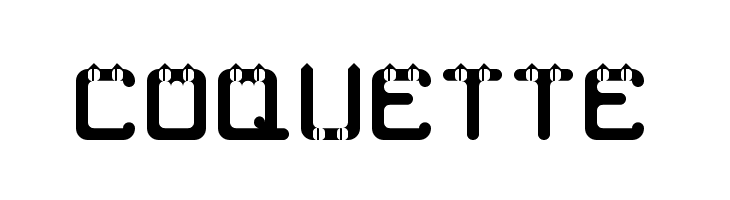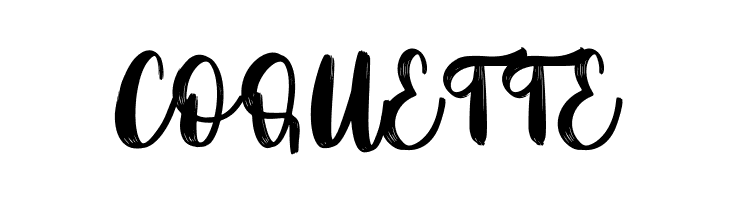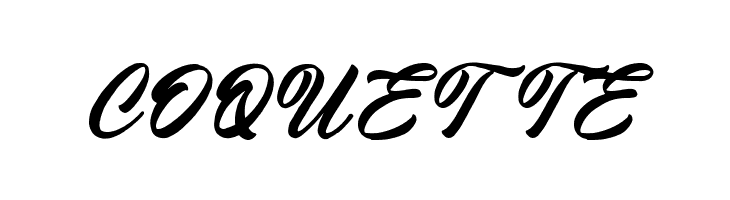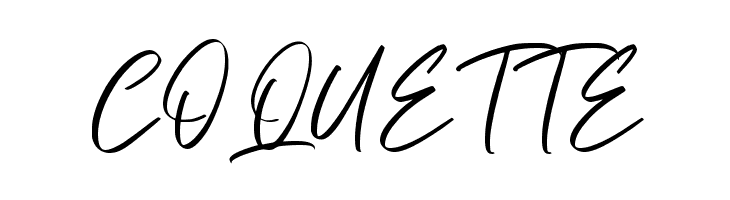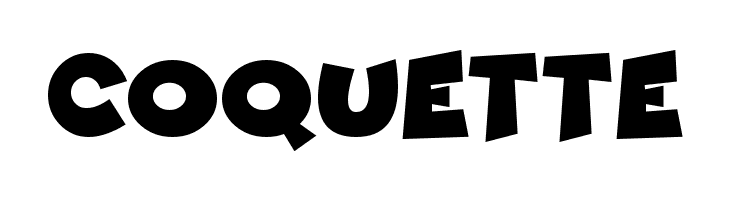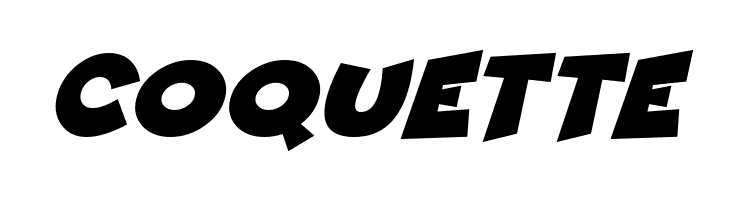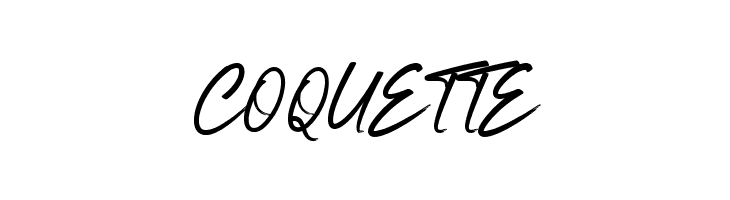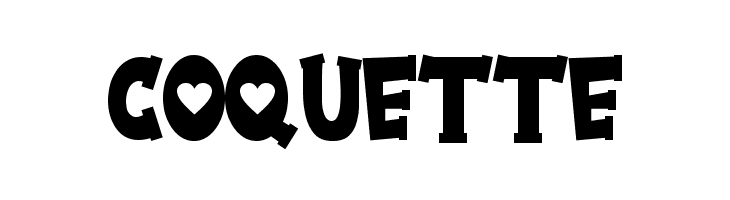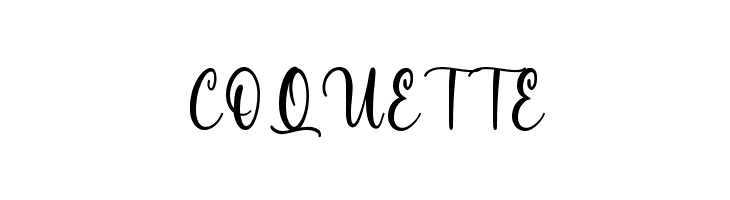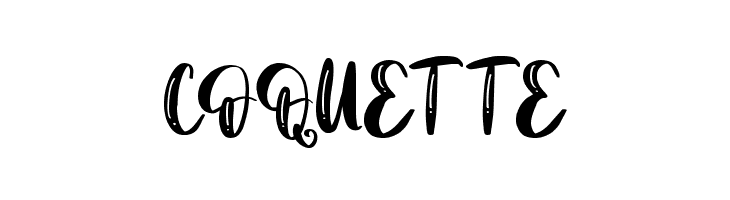
A playful and casual handwritten font with fluid, connected letterforms.
A fluid, elegant script font with a natural handwriting style.
A playful and elegant script font with flowing, cursive letterforms.
A flowing, cursive font with elegant curves and a sophisticated style.
A playful and elegant script font with flowing, connected letters.
A cursive, handwritten-style font with elegant, flowing characters.
A playful, handwritten font with bold, rounded characters.
A flowing, cursive font with elegant, interconnected strokes.
A flowing, cursive font with elegant, interconnected letters and a graceful aesthetic.
A flowing, cursive script font with elegant, interconnected characters.
A dynamic and flowing script font with elegant, connected letterforms.
A stylish and elegant script typeface with a modern calligraphic flair.
A bold, angular font with sharp edges and a dynamic geometric style.
A bold, geometric font with a 3D effect and modern style.
A bold, energetic script font with fluid, lively strokes.
A playful font with cat ear designs on each character, offering a whimsical and modern aesthetic.
A playful, heart-embellished font with bold, chunky letters and whimsical charm.
A playful, hand-drawn font with tall, narrow letters and a whimsical style.
A playful, bold font with rounded, thick characters and a whimsical style.
A bold, 3D decorative font with a strong, modern presence.
A playful, elegant cursive font with smooth, flowing strokes.
A playful collection of heart-themed doodles with diverse styles and embellishments.
A bold, decorative font with intricate, vintage-inspired details.
A bold, decorative font with American flag motifs, featuring stars and stripes.
A bold, expressive handwritten font with dynamic strokes and lively movement.
A playful, rounded font with a friendly, handwritten style.
A playful, rounded font with a friendly and approachable style.
A decorative monogram style with butterfly motifs surrounding bold uppercase letters.
A bold, expressive script font with a hand-painted, artistic style.
A lively and elegant script font with flowing, cursive letterforms.
A graceful and flowing script font with elegant, cursive strokes.
A graceful and flowing script font with elegant, connected strokes.
A bold, playful font with exaggerated, uneven letterforms.
A bold, italicized font with a playful and dynamic style.
A whimsical, ornamented font perfect for festive occasions.